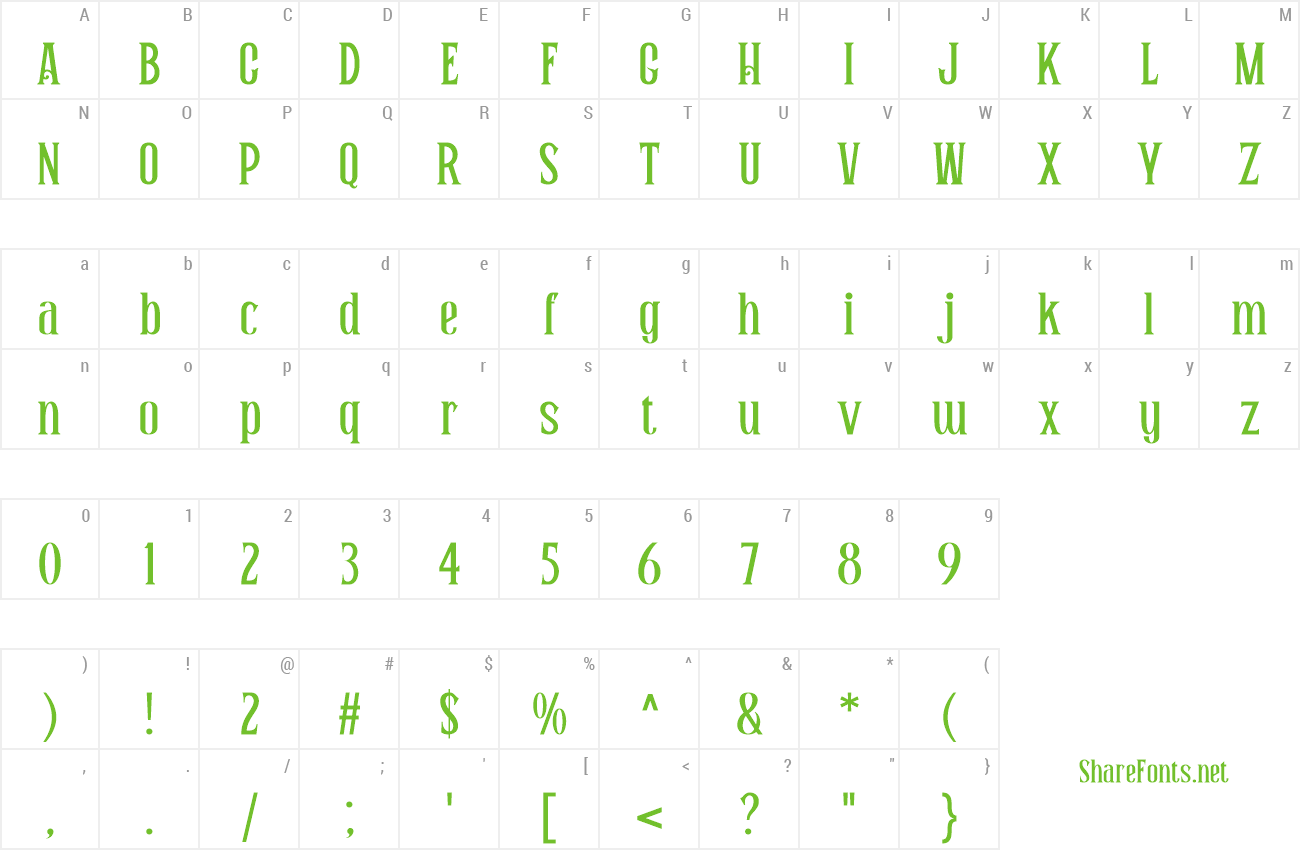
Billy Money Font
Billy Money Font - Web this font is perfect for an elegant victorian style vintage design. In addition to the regular billy money.
Web this font is perfect for an elegant victorian style vintage design. In addition to the regular billy money.
Billy Money Font
In addition to the regular billy money. Web this font is perfect for an elegant victorian style vintage design.
In Addition To The Regular Billy Money.
Web this font is perfect for an elegant victorian style vintage design.